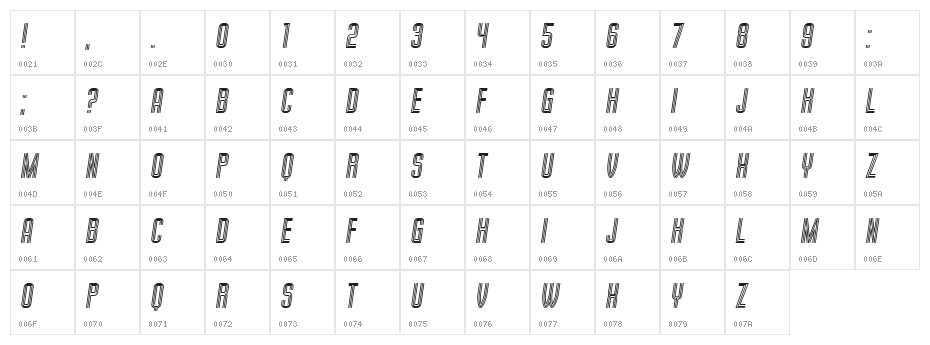
Milk and Chocolate Italic Font
Milk and Chocolate Italic Description
This font features a unique, decorative style with a distinct italic slant. The characters are composed of multiple parallel lines, creating a layered, three-dimensional effect. The uppercase and lowercase letters maintain a consistent height, contributing to a cohesive appearance. The numerals and special characters are designed with the same multi-line structure, ensuring uniformity across all glyphs. This font's bold and striking design makes it ideal for attention-grabbing applications. The spacing between characters is tight, enhancing the overall compact and impactful look. The font's modern and artistic flair makes it suitable for creative projects.
| Proposed Projects | Ideal for posters, headlines, branding, and artistic designs. |